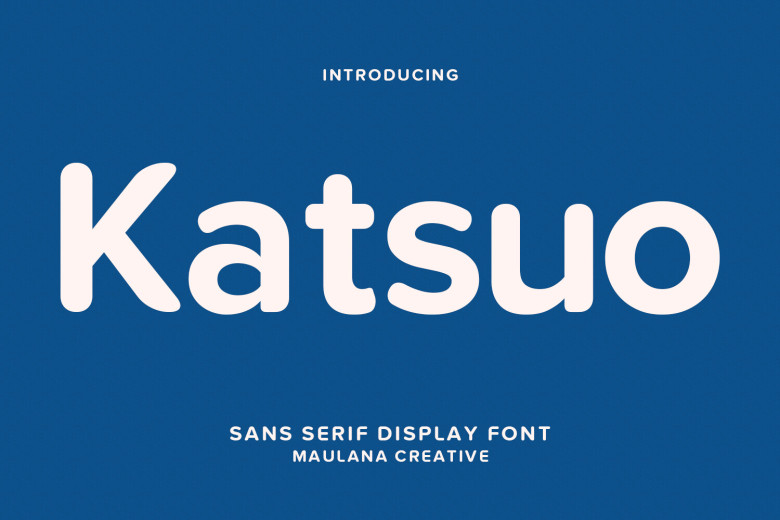
Katsuo Font
Katsuo is sans-serif display typeface which characterized as bold, tall, sharp strokes. It has fun characteristics, such as some ligatures and alternates, can help bring diversity creativity to your projects. This font is perfect for logo design, social networking graphics, film and book titles, as well as both short and long texts. It complements both sans and slabs for smaller characters well; it will pair nicely with them. Use Katsuo to produce stunning artwork.
Katsuo Sans Serif Font